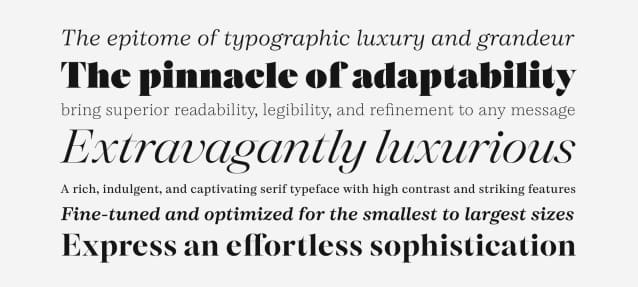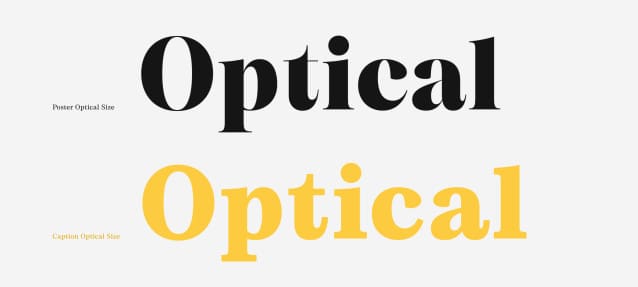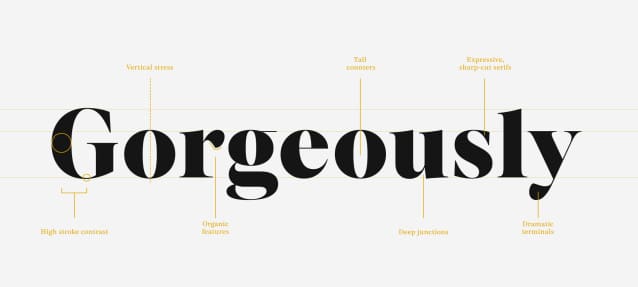
Marble Arch Font Family
Marble Arch Font Family is a typeface that embodies the grandeur and timeless elegance of the iconic London landmark after which it is named. The extensive font family is the pinnacle of adaptability, and is ready to support any message or project, regardless of its scale.